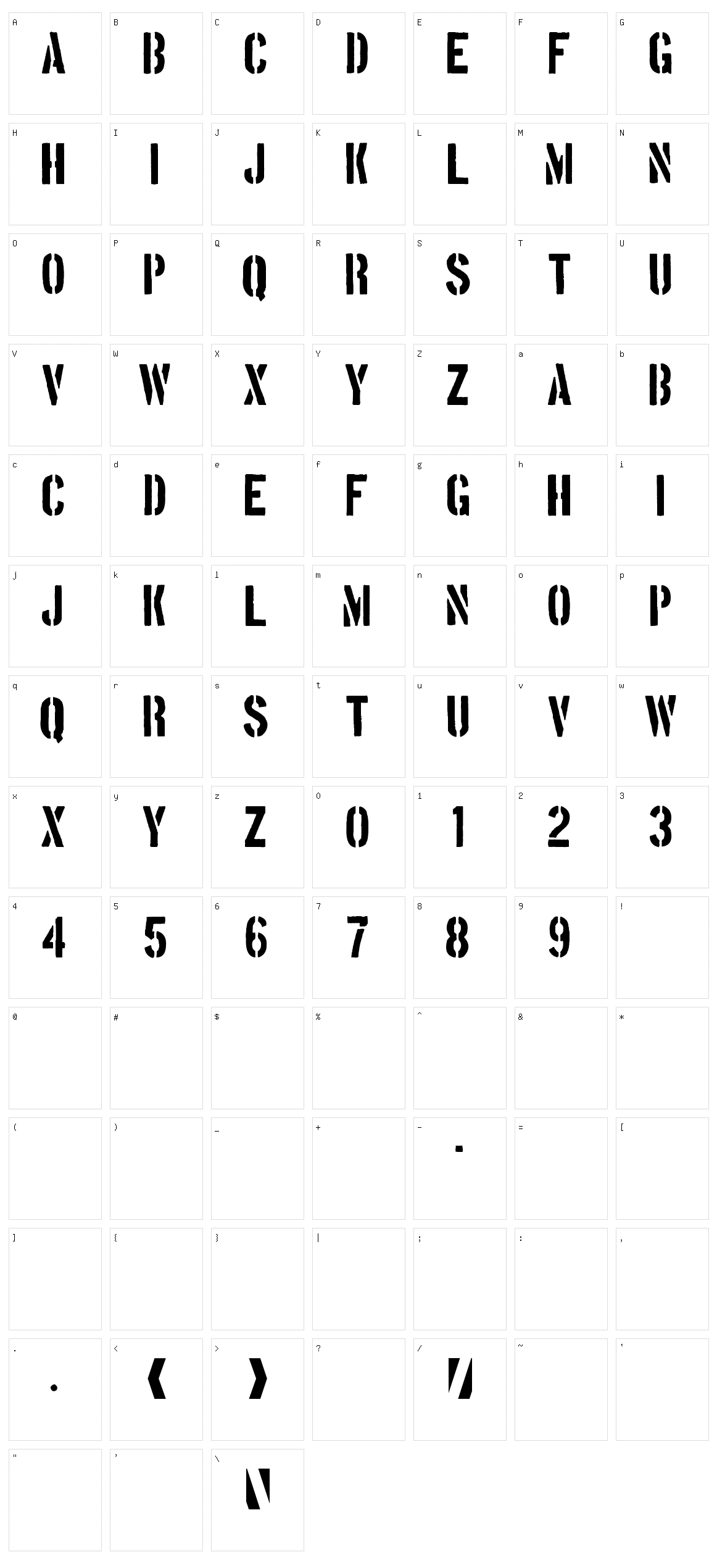
The free font Boston Traffic is carefully designed by Vic Fieger, showcasing a thoughtful balance of creativity and usability and falls under the Stencil font style. When you download the ZIP file, it contains only 10.71 KB of font files, making it lightweight and quick to download. Please review the license details below to understand permitted usage and distribution rights. If license information is not available, we recommend using this font for personal projects only or contacting the author directly for commercial usage permissions.